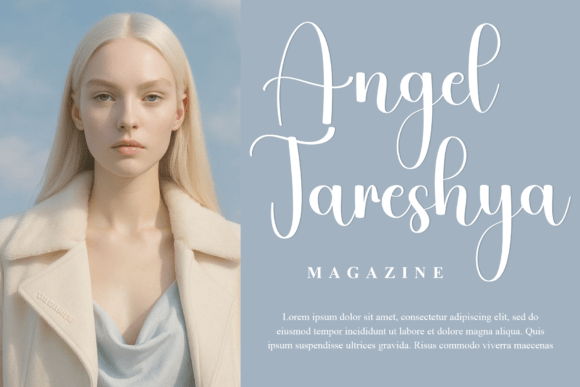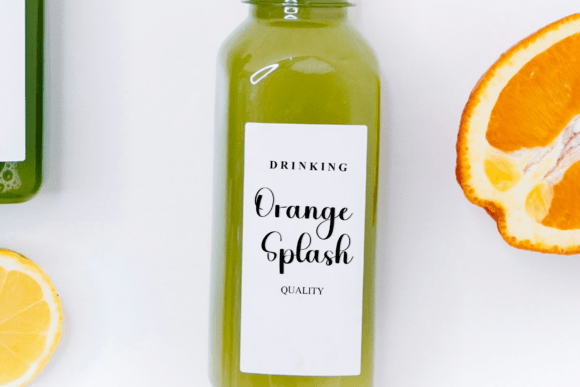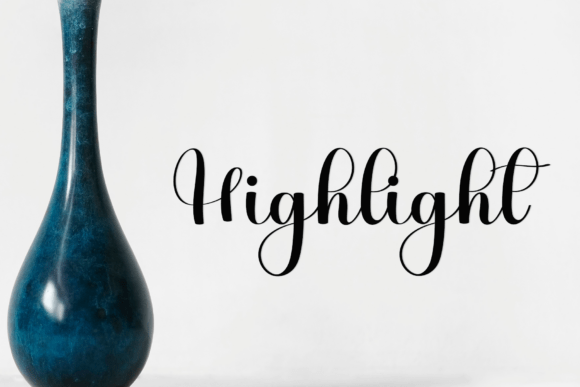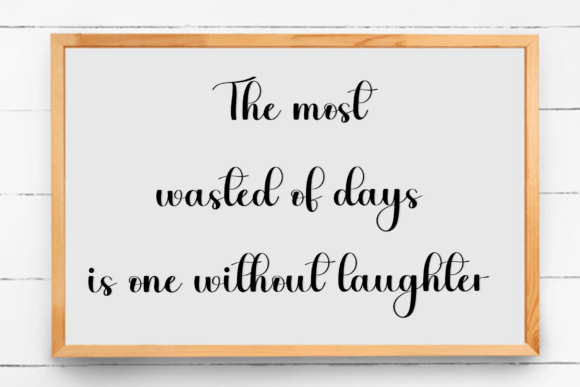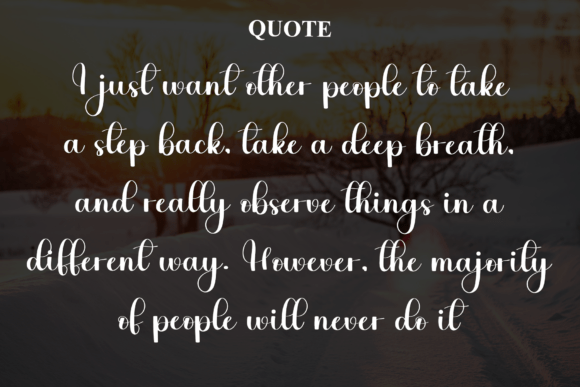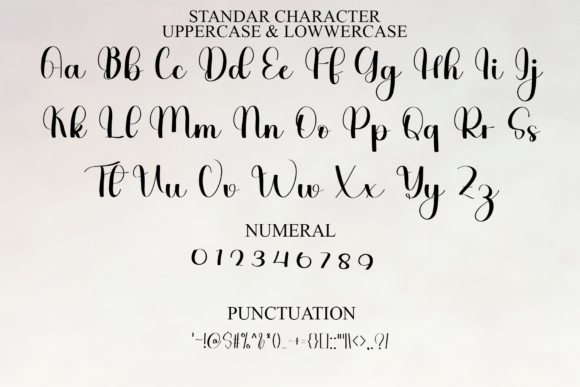
Bulky Writing Font: Adding a Touch of Warmth and Friendliness to Your Designs
Are you tired of using the same old fonts in your designs? Do you want to add a personal touch to your projects and make them stand out from the crowd? Look no further than the Bulky Writing font, a casual and creative typeface that exudes warmth and friendliness. In this article, we’ll take a closer look at the Bulky Writing font, its features, and how you can use it to elevate your designs.
What is Bulky Writing Font?
Bulky Writing font is a hand-drawn typeface that features round, playful strokes that create a relaxed and approachable feel. This font is perfect for designers and crafters who want to add a fun and unique touch to their projects. Whether you’re working on a personal project, creating invitations, or designing social media graphics, Bulky Writing font is an excellent choice.
Key Features of Bulky Writing Font
So, what makes Bulky Writing font so special? Here are some of its key features:
- Casual and Creative: Bulky Writing font has a casual and creative vibe that makes it perfect for personal projects and designs that require a friendly touch.
- Round and Playful Strokes: The font’s round and playful strokes create a relaxed and approachable feel that’s sure to engage your audience.
- Hand-Drawn Aesthetic: The font’s charming, hand-drawn aesthetic adds a fun and unique touch to any design.
Use Cases for Bulky Writing Font
So, how can you use Bulky Writing font in your designs? Here are some use cases to get you started:
- Personal Projects: Use Bulky Writing font to add a personal touch to your personal projects, such as photo albums, scrapbooking, and journaling.
- Invitations: Create beautiful and unique invitations for special occasions, such as birthday parties, weddings, and baby showers.
- Social Media Graphics: Use Bulky Writing font to create engaging social media graphics, such as quotes, posters, and flyers.
- Crafting and DIY Projects: Add a touch of personality to your crafting and DIY projects, such as handmade cards, gift tags, and labels.
Tips for Using Bulky Writing Font
Here are some tips to help you get the most out of Bulky Writing font:
- Pair it with Other Fonts: Experiment with pairing Bulky Writing font with other fonts to create a unique and visually appealing combination.
- Use it in Headlines and Titles: Use Bulky Writing font in headlines and titles to add a touch of personality and whimsy to your designs.
In conclusion, Bulky Writing font is a versatile and creative typeface that’s perfect for designers and crafters who want to add a personal touch to their projects. With its casual and friendly vibe, round and playful strokes, and hand-drawn aesthetic, this font is sure to engage your audience and make your designs stand out from the crowd. So why not give it a try and see how Bulky Writing font can elevate your designs?
Whether you’re a seasoned designer or a crafty DIY enthusiast, Bulky Writing font is an excellent addition to your font library. So go ahead, get creative, and have fun with Bulky Writing font!